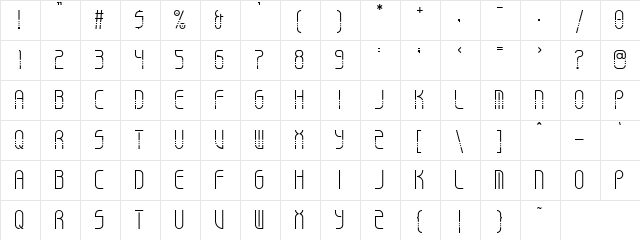
TINGEE Regular
Design Context for TINGEE Typeface
TINGEE is a composed and adaptable typeface that performs quietly and consistently across a wide range of design contexts.
Pro Tip: Pair TINGEE with a font of contrasting weight or personality to build a more expressive typographic hierarchy.